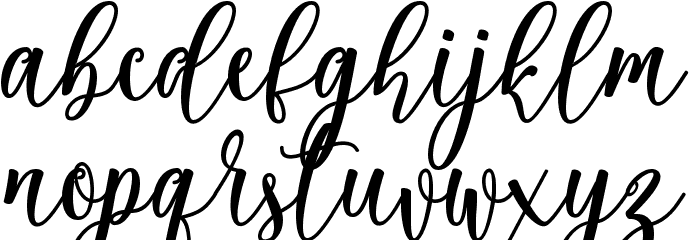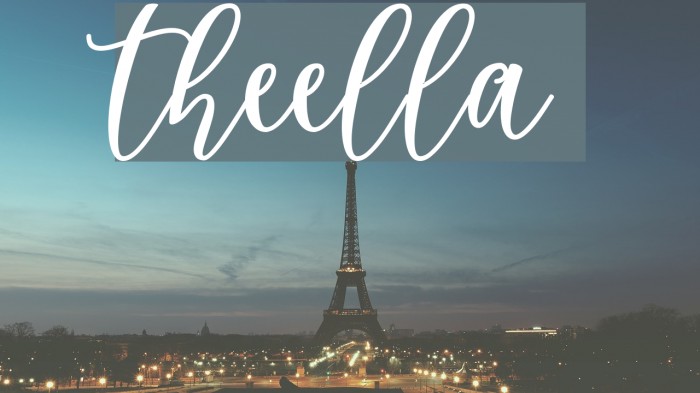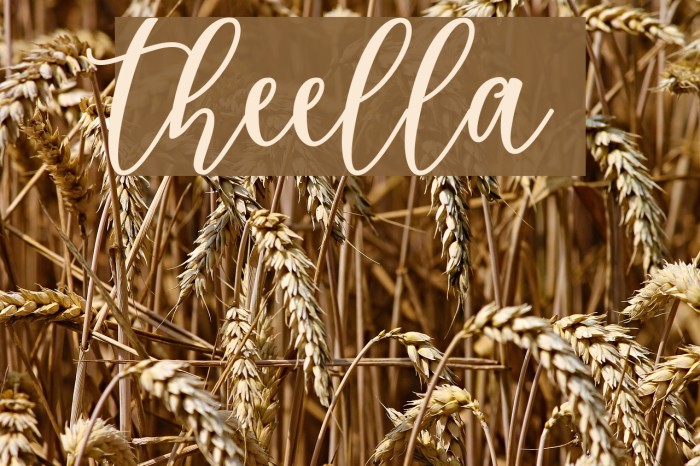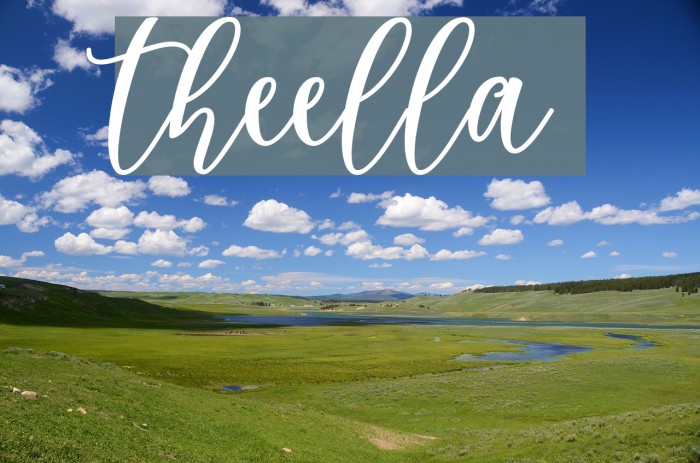
theella Font
This font exudes a charming and elegant script style, characterized by its flowing, cursive letterforms. The uppercase letters are ornate, with intricate loops and swirls that add a touch of sophistication. The lowercase letters maintain a smooth and consistent flow, enhancing readability while preserving the decorative nature. The numerals and special characters are designed to complement the overall aesthetic, featuring similar curves and flourishes. This font is perfect for projects that require a personal and artistic touch, such as invitations, greeting cards, and branding materials.
A charming and elegant script font with flowing, cursive letterforms.
- Proposed Projects: Ideal for wedding invitations, greeting cards, logos, and branding materials.
- Overall Style: Elegant, Decorative
- Use Case: Headlines, Logos, Invitations